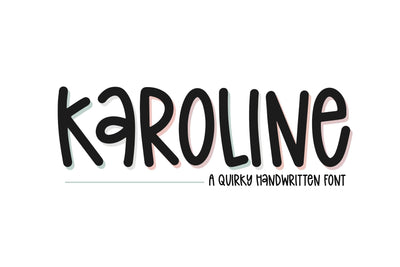
Karoline - Quirky Handwritten Font
Karoline is a fun handwritten font!
This font is perfect for craft projects, svg designs, branding, shirts, logos and more!